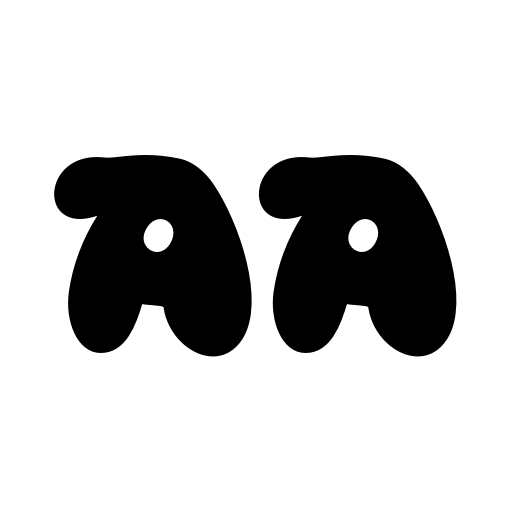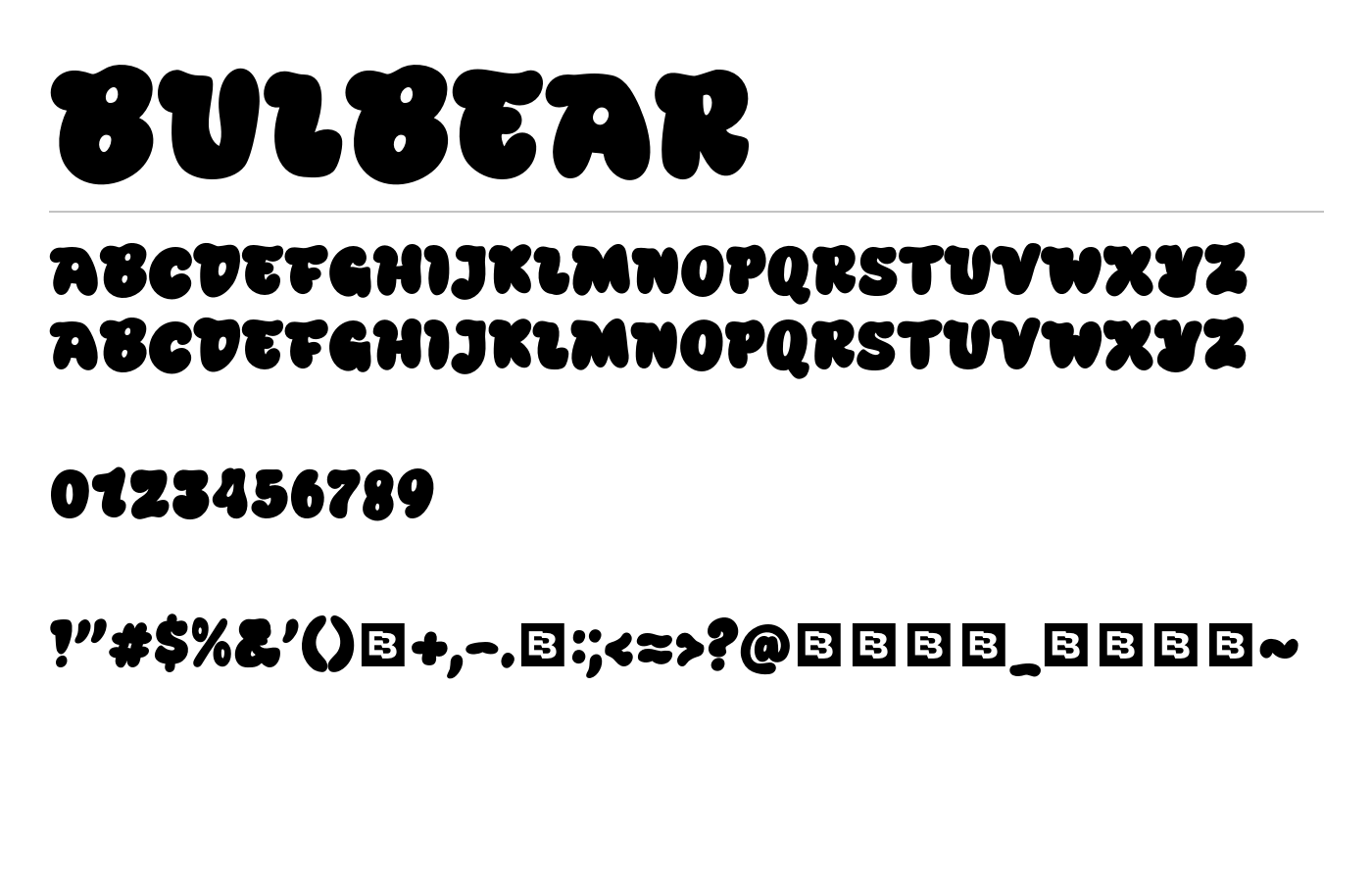
Bulbear is a bold, playful display font with thick, rounded letterforms that create a bubbly, friendly vibe. Its heavy weight and soft, almost cartoon-like shapes make it excellent for eye-catching headlines, logos, and fun packaging, where a lively and approachable personality is desired. This font works well in creative or informal settings, bringing a sense of joy and whimsy to any design.
Bulbear Font
About Bulbear Font
| Font family | Bulbear Font |
| Designer | Eko Bimantara, Bion Ibrahim |